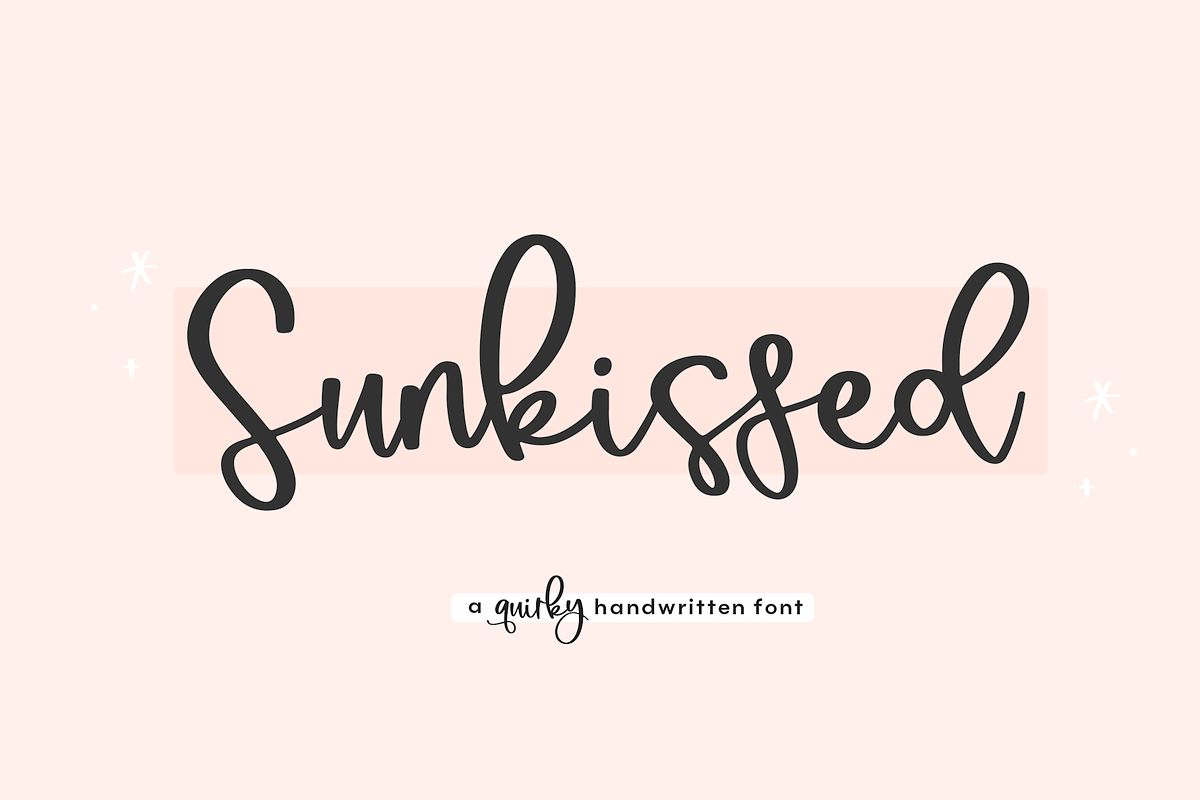
Sunkissed | Handwritten Script Font Free Download
Sunkissed – Handwritten Script Font Free Download
Sunkissed – Handwritten Script Font Free Download is a playful and elegant handwritten script font with a sunny, warm vibe. With its flowing strokes, natural curves, and charming personality, this font is perfect for summer-themed designs, personal branding, wedding invitations, greeting cards, social media posts, and logo designs.
Designed to evoke a carefree, positive energy, Sunkissed – Handwritten Script Font Free Download brings a touch of brightness and warmth to any project. Its casual, yet sophisticated style works well for both modern and vintage-inspired designs.